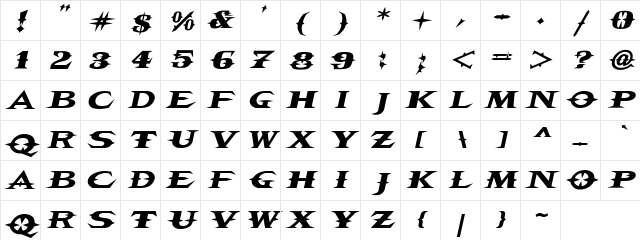
VTCBelialsBladeItalic Italic
Designer: WolfBainX
Design Context for VTCBelialsBladeItalic
VTCBelialsBladeItalic is a composed and adaptable typeface that performs quietly and consistently across a wide range of design contexts. The slanted form adds forward momentum and visual energy.
Pro Tip: Use VTCBelialsBladeItalic for emphasis, pull quotes, and subheadings where its slanted energy can add rhythm to the layout.